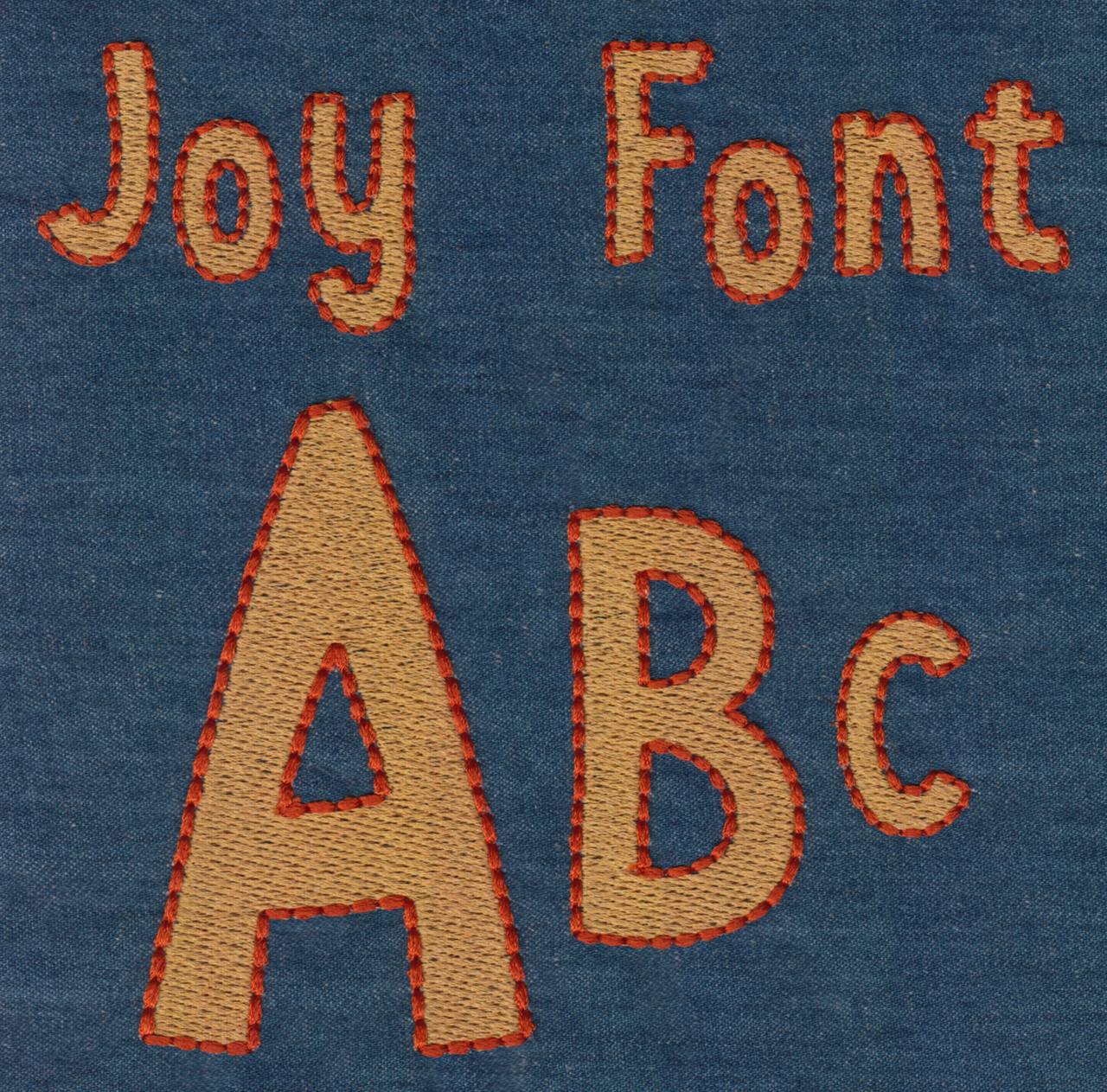
690 Joy Fill & Floss Font
690 Joy Fill & Floss Font comes in 1", 2", 3", 4" and 5" heights base on the capital "A". All sizes finished in Fill Stitch with Floss Stitch outlines in two-color set up. Includes uppercase letters, lowercase letters, numbers and ten punctuation marks.